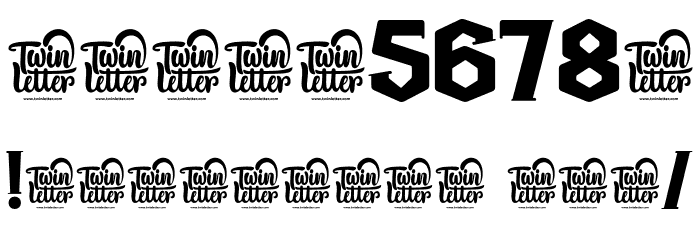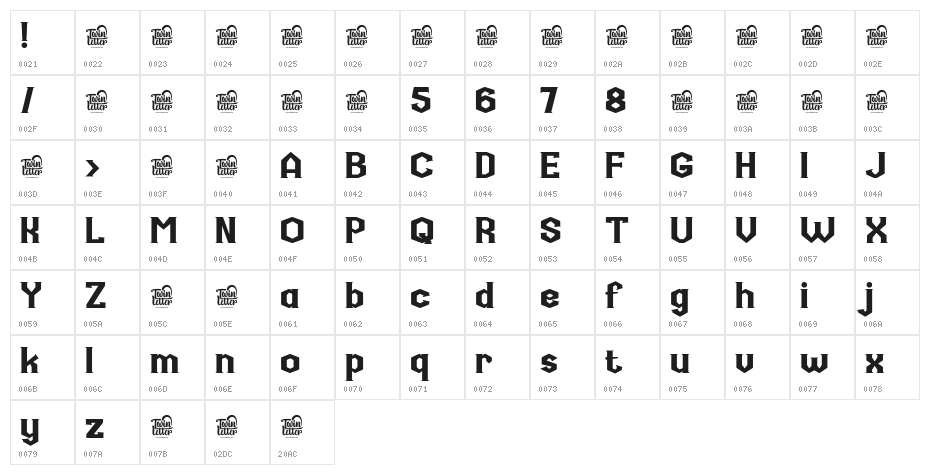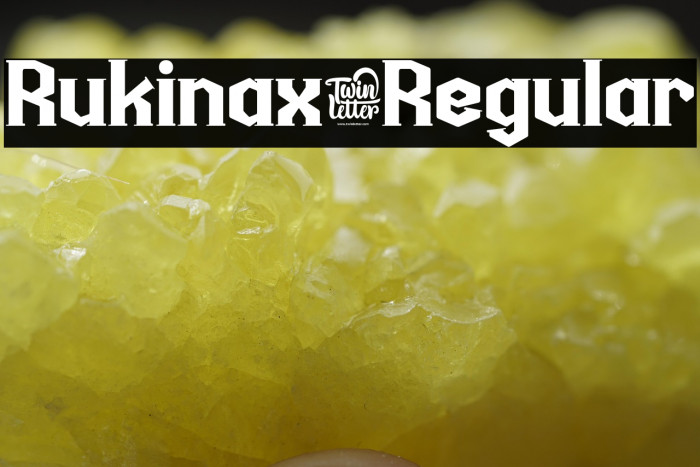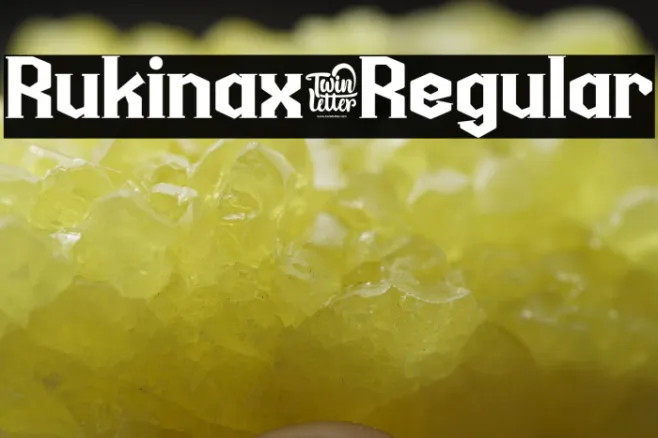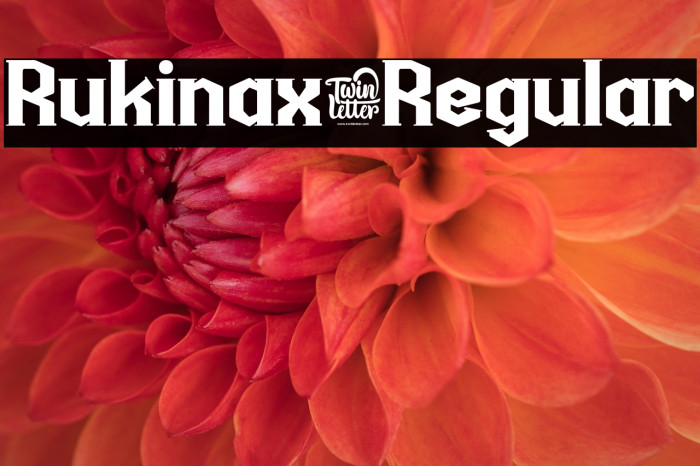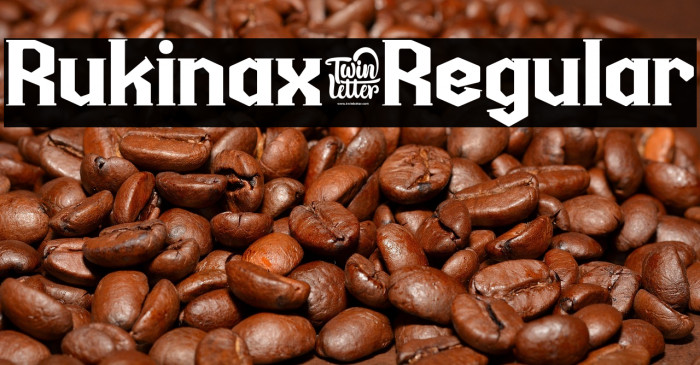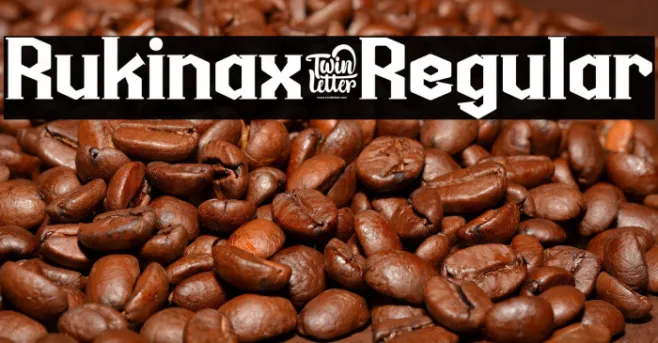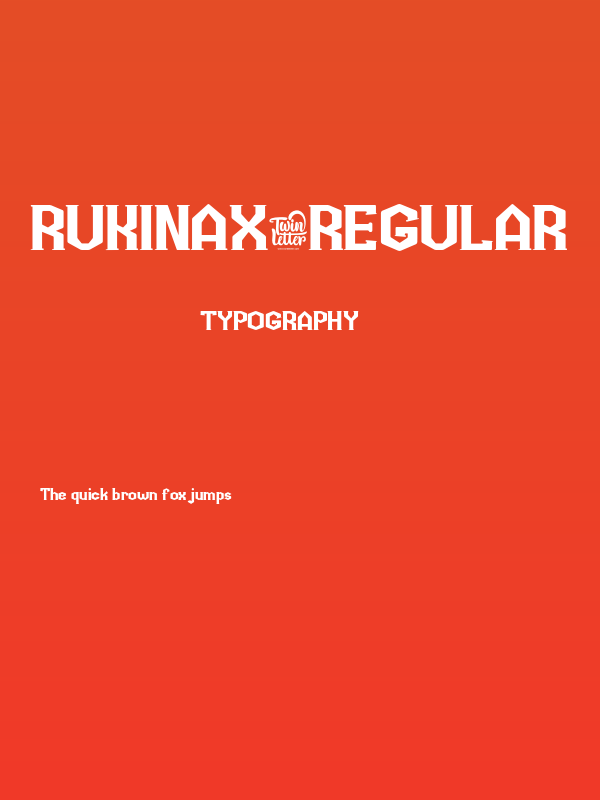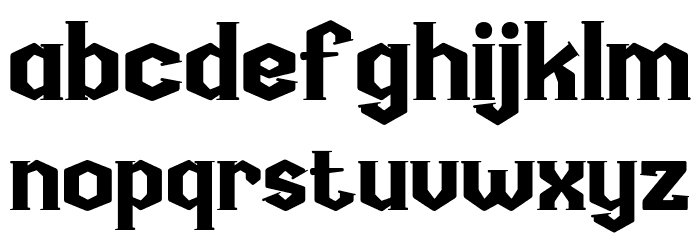
Rukinax-Regular Font
Rukinax-Regular Description
This font features a bold and angular design, characterized by its sharp edges and geometric forms. The uppercase letters are particularly striking, with a strong presence that commands attention. The lowercase letters maintain a consistent style, offering a cohesive look across both cases. The numbers are equally bold, ensuring readability and impact. Special characters are designed to match the overall aesthetic, providing a complete and versatile typeface. This font is ideal for projects that require a modern and edgy appearance.
| Proposed Projects | Ideal for branding, posters, headlines, and any design requiring a modern, edgy look. |